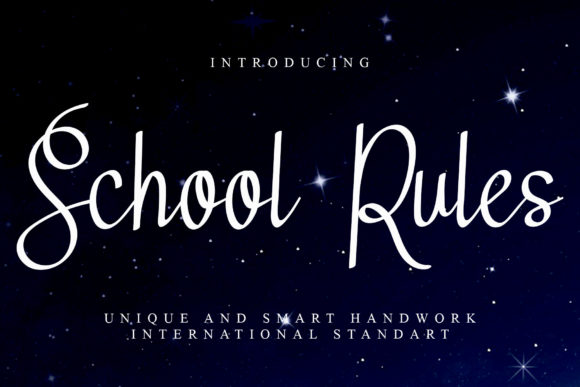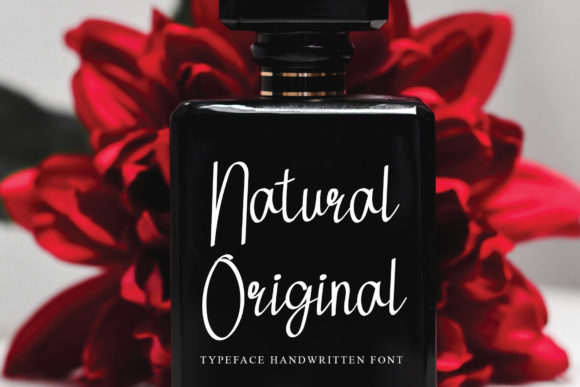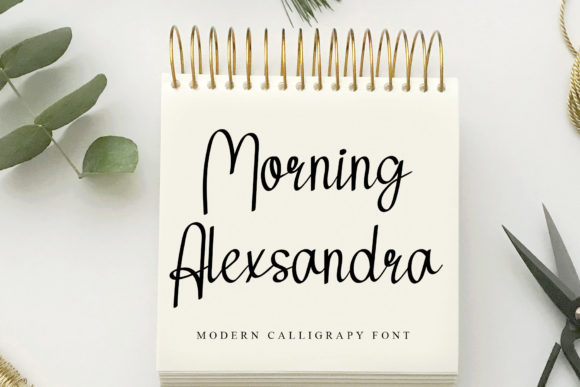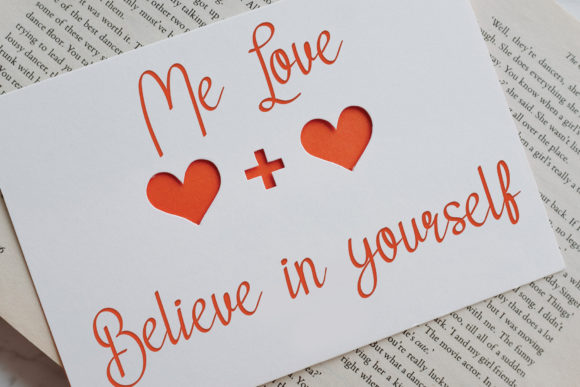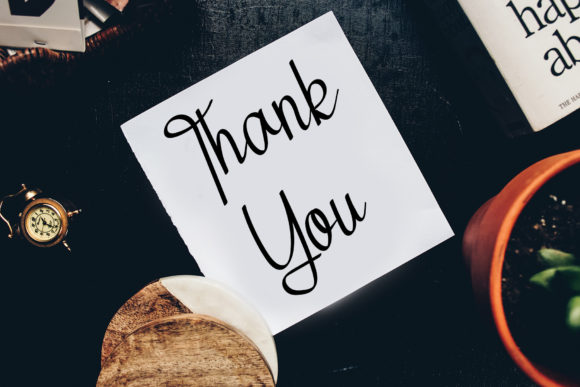
School Rules Font
School Rules is a unique and elegant handwritten font. It looks beautiful on a variety of designs requiring a personalized style, such as wedding invitations, thank you cards, weddings, greeting cards, logos and so on.